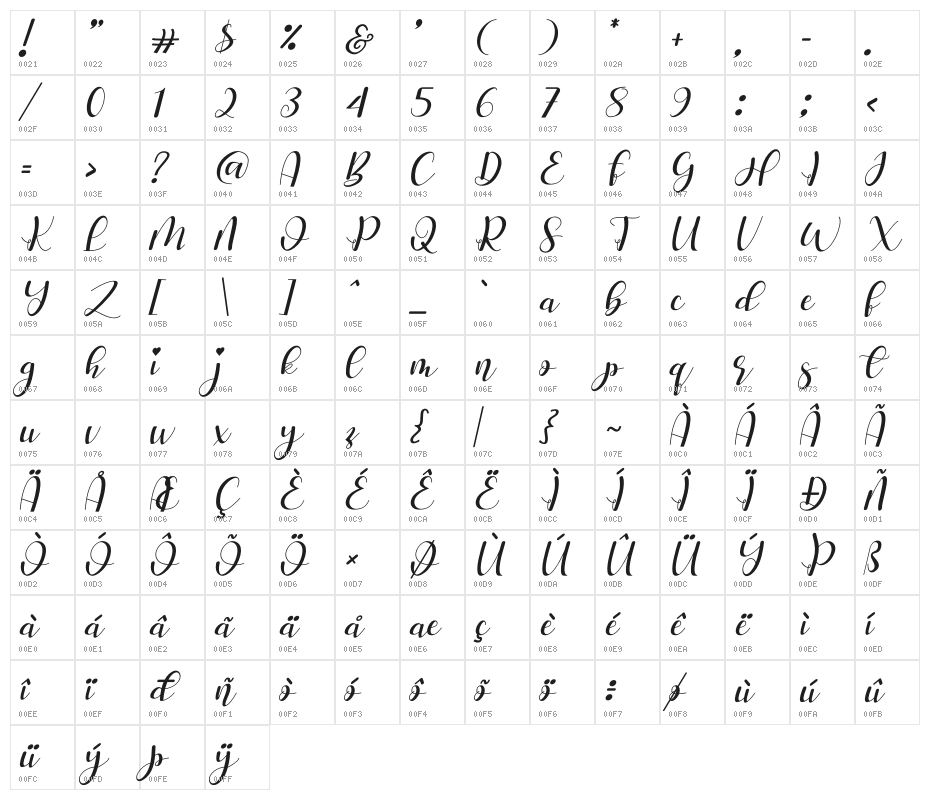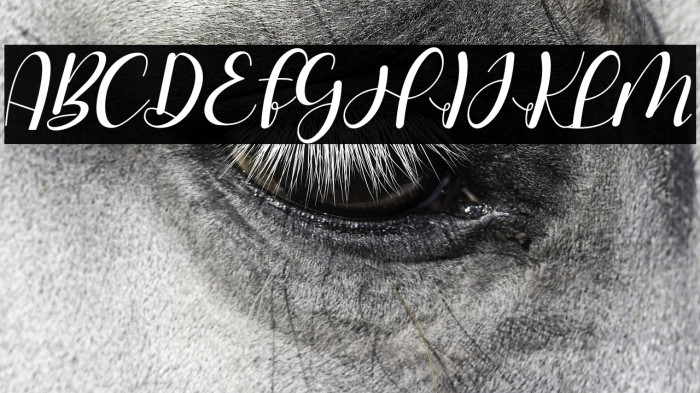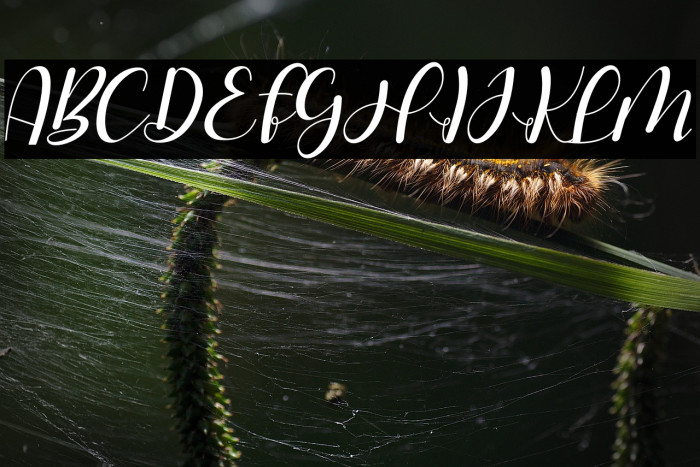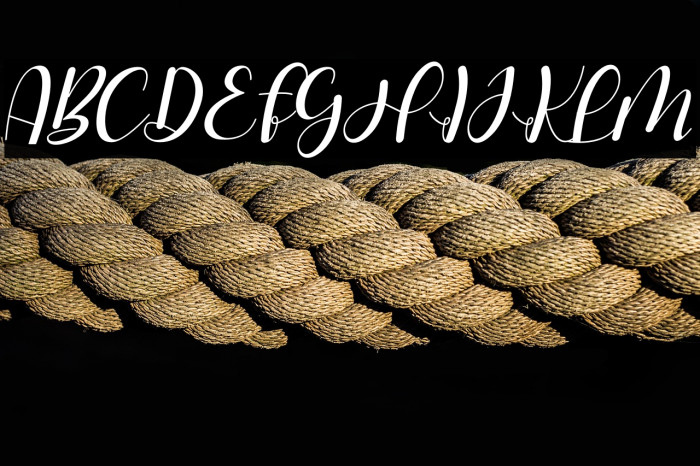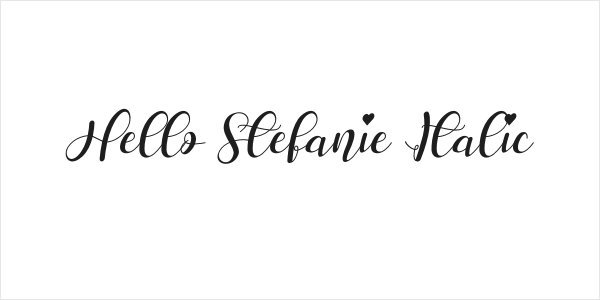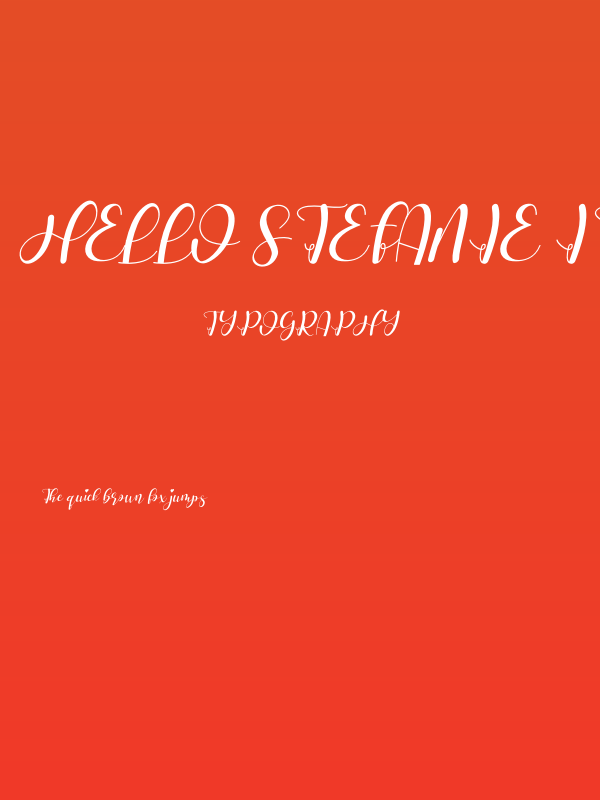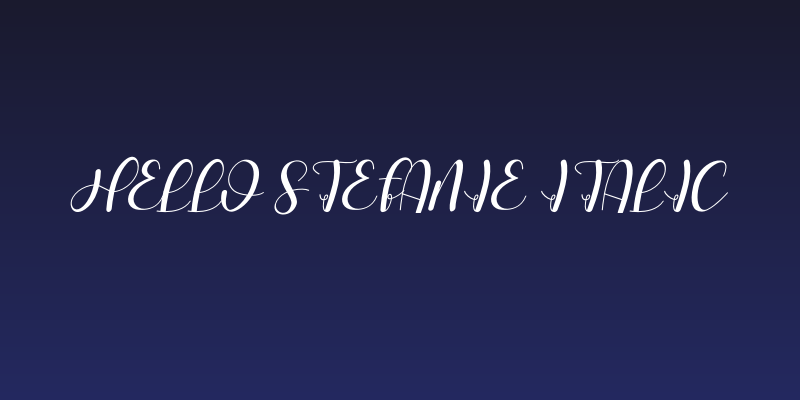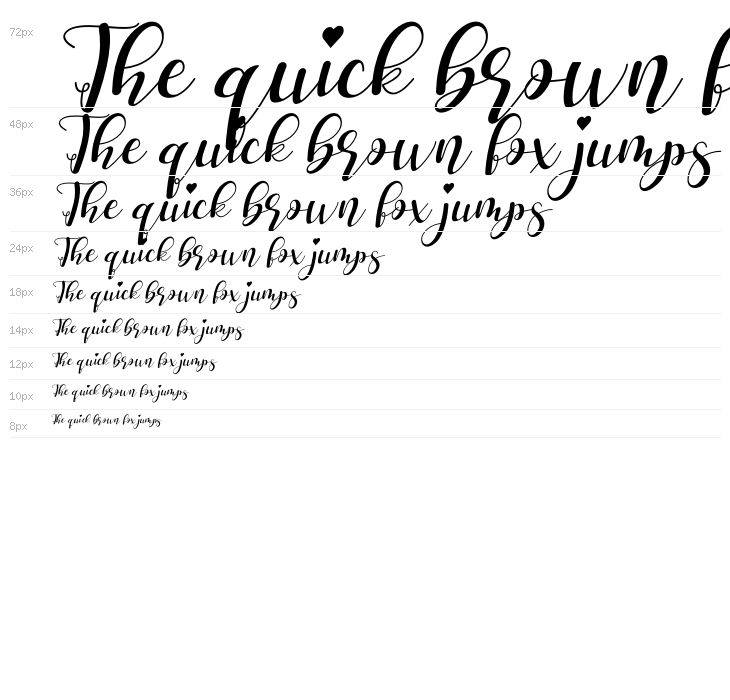
Hello Stefanie Italic Font
Hello Stefanie Italic Description
This font features an elegant and flowing script style, characterized by its smooth, cursive strokes and delicate swashes. The uppercase letters are ornate, with flourishes that add a touch of sophistication, while the lowercase letters maintain a consistent, graceful flow. The numerals are stylishly integrated, matching the overall cursive theme. Special characters are designed with the same attention to detail, ensuring a cohesive look across all glyphs. The font's italic nature enhances its fluidity, making it ideal for projects that require a touch of elegance and charm.